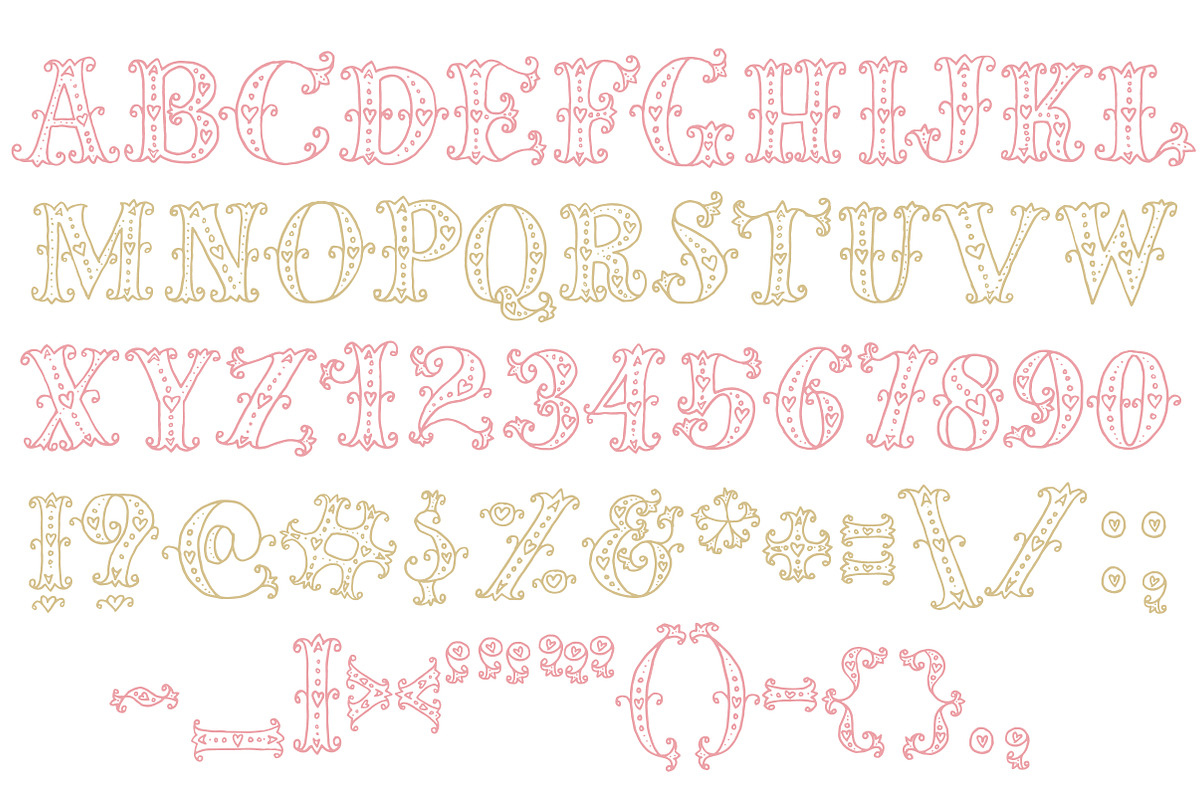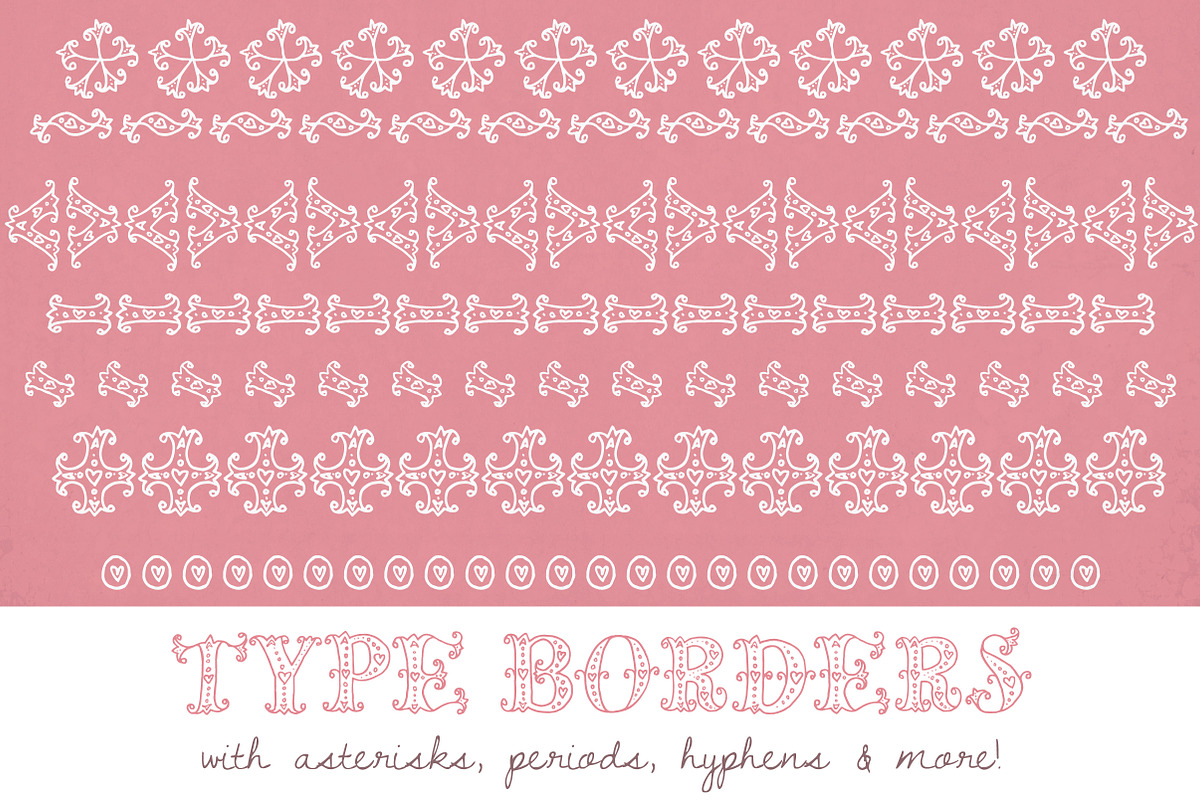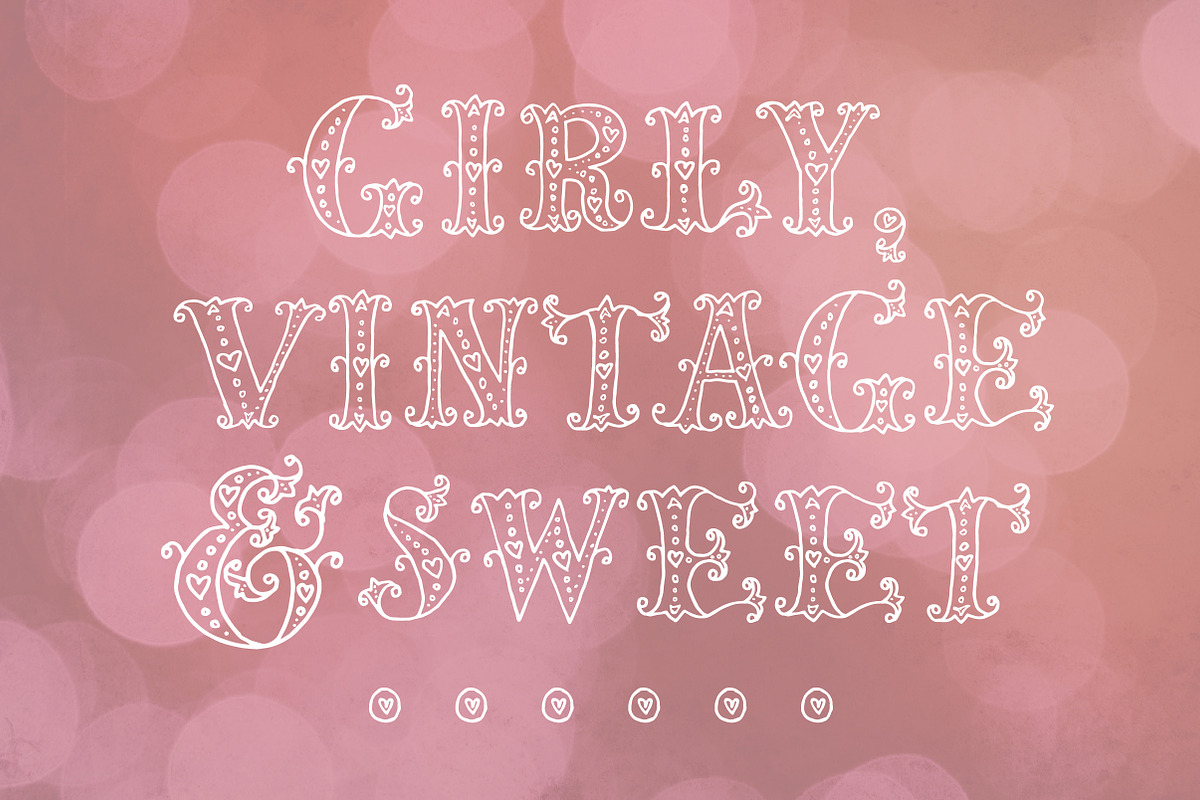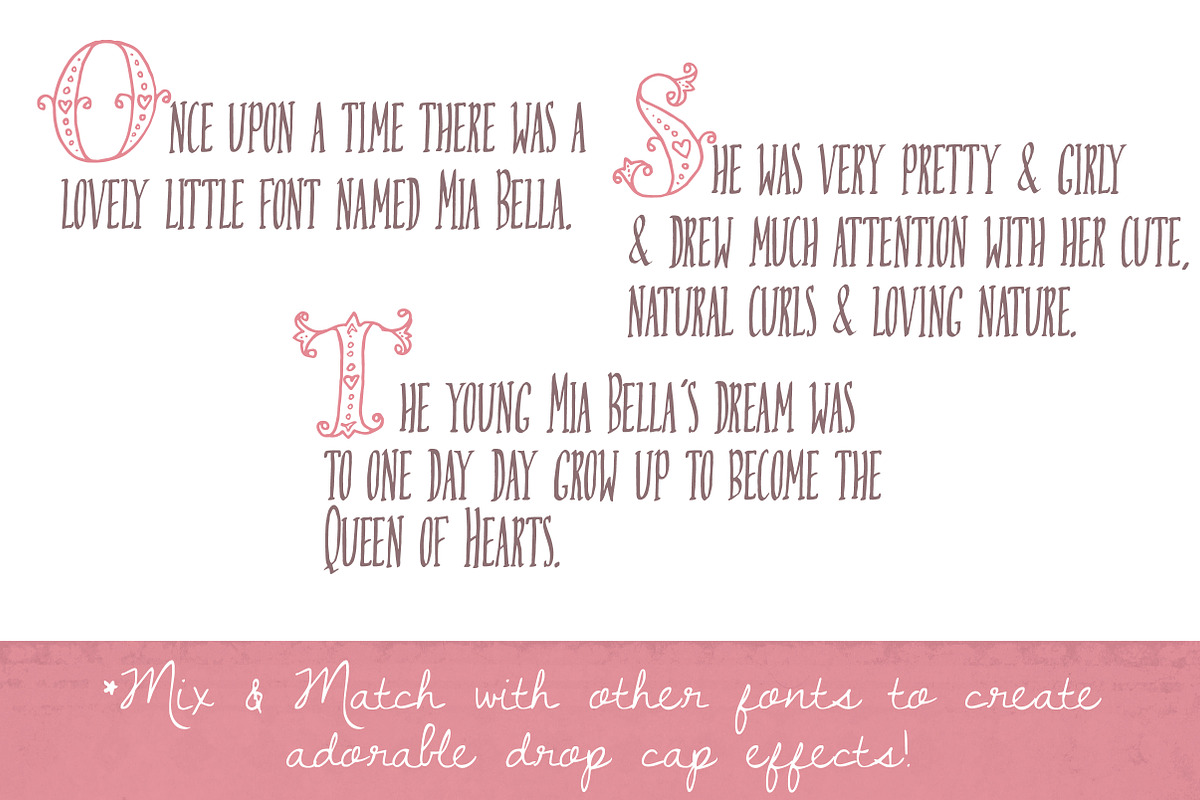
Mia Bella (Lighthearted) Font
Mia Bella (Lighthearted) Font by The Pen and Brush is a font selected for branding, posters, packaging, typography.
Why Mia Bella (Lighthearted) Font is worth a look
Mia Bella (Lighthearted) Font by The Pen and Brush fits naturally into Branding, posters, packaging, typography.